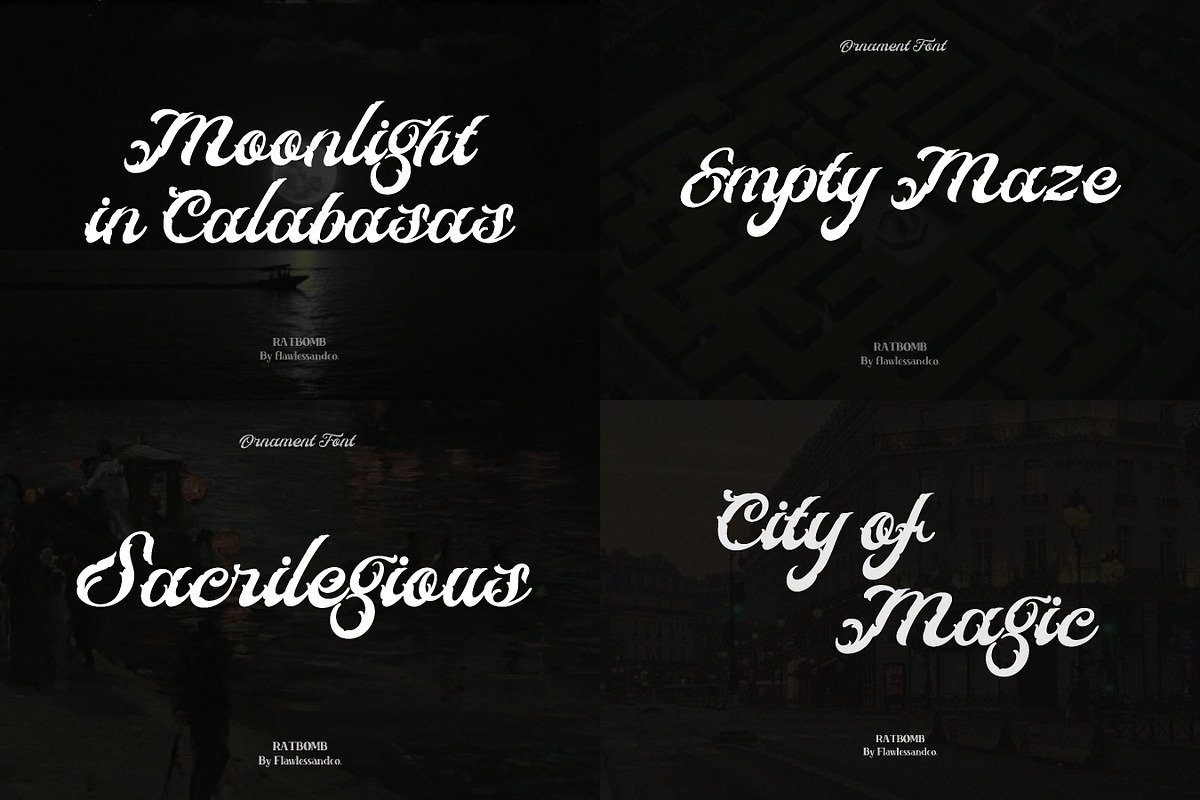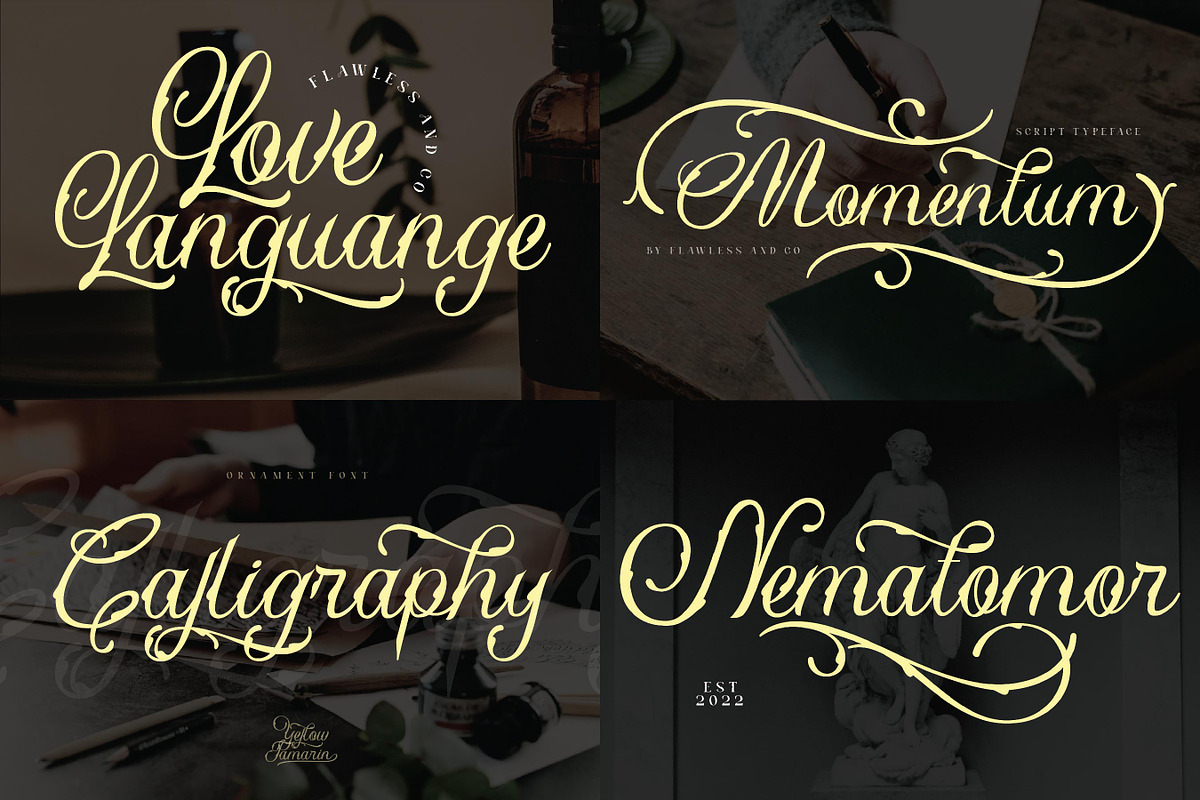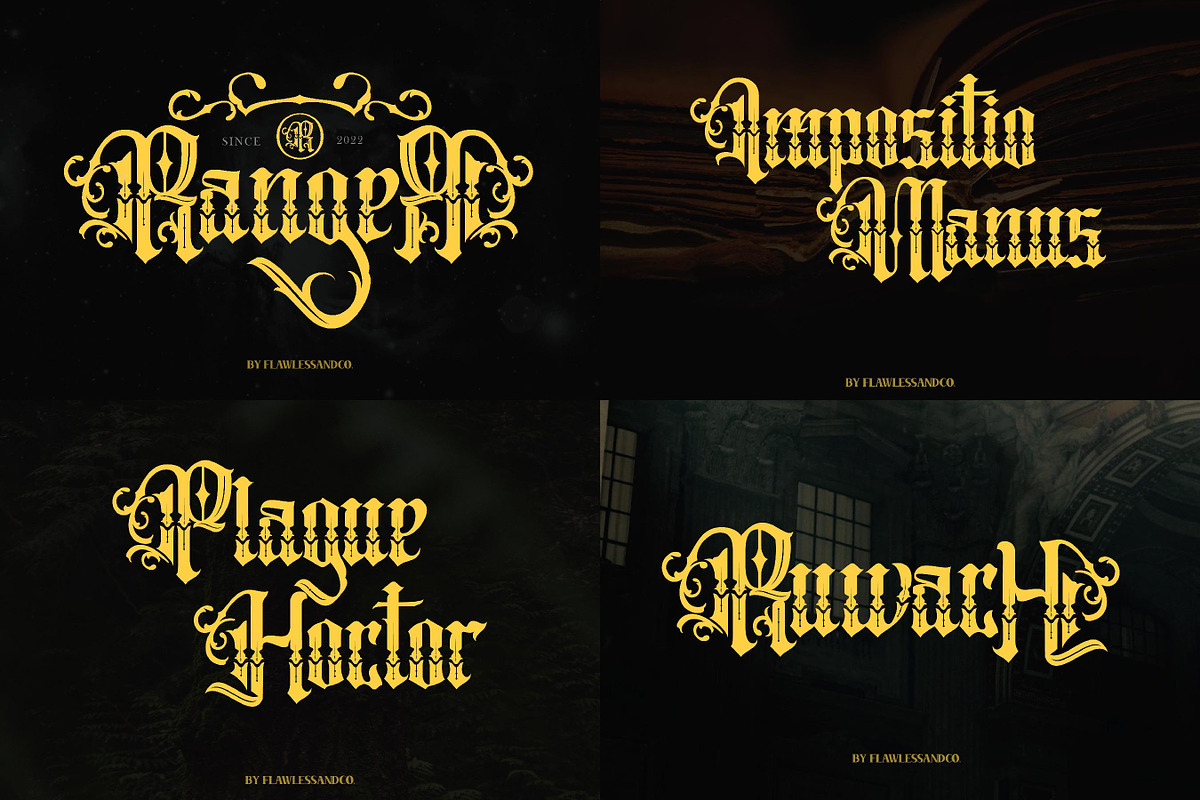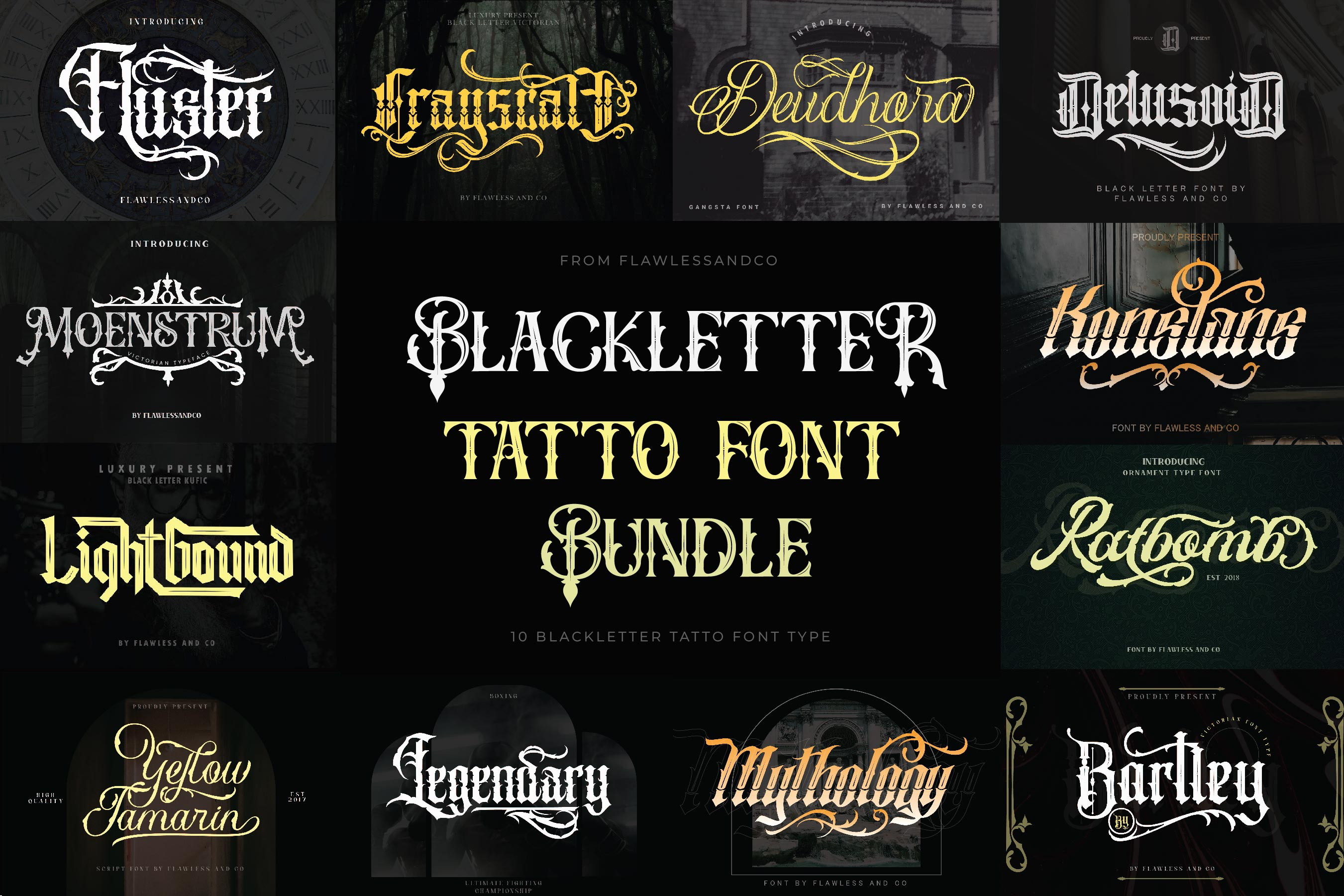
Blackletter Tattoo Font Bundle
Introducing the Blackletter Font Bundle - An Epic Collection of Timeless Elegance. Discover the allure of the past with our Blackletter Font Bundle, a captivating collection that brings the artistry of traditional calligraphy into the modern era. Embrace the elegance and mystique of blackletter typography, where each stroke carries a rich history and an air of sophistication.
This bundle include 10 high quality blackletter font. Suitable for any graphic designs such as branding materials, t-shirt, print, business cards, logo, poster, t-shirt, photography, quotes .etc
- Deluosid
- Deudhora
- Fluster
- Konstans
- Yellow Tamarin
- Moenstrum
- Bartley
- Crayscale
- Lightbound
- Ratbomb
Multilingual Uppercase alphabet A-Z Lowercase alphabet a-z Alternate Character Numbers 0-9 Some punctuation